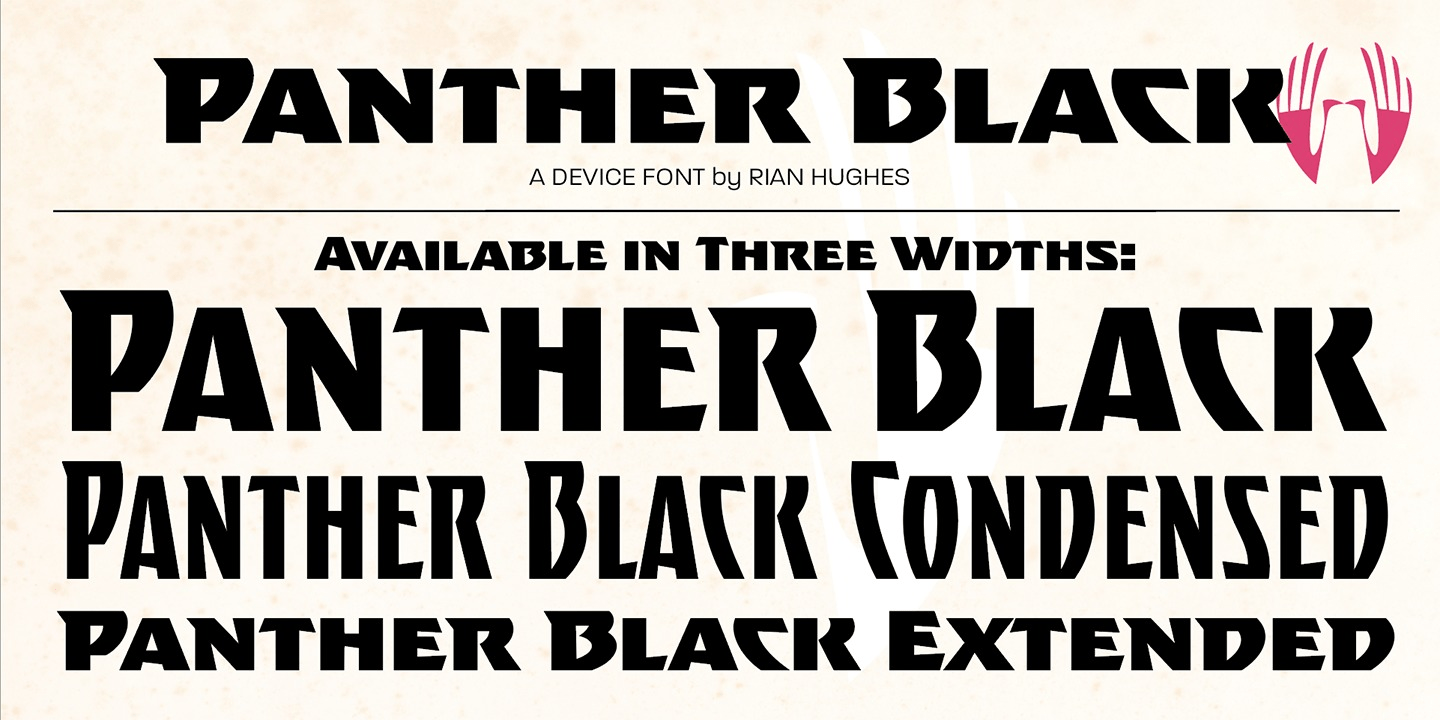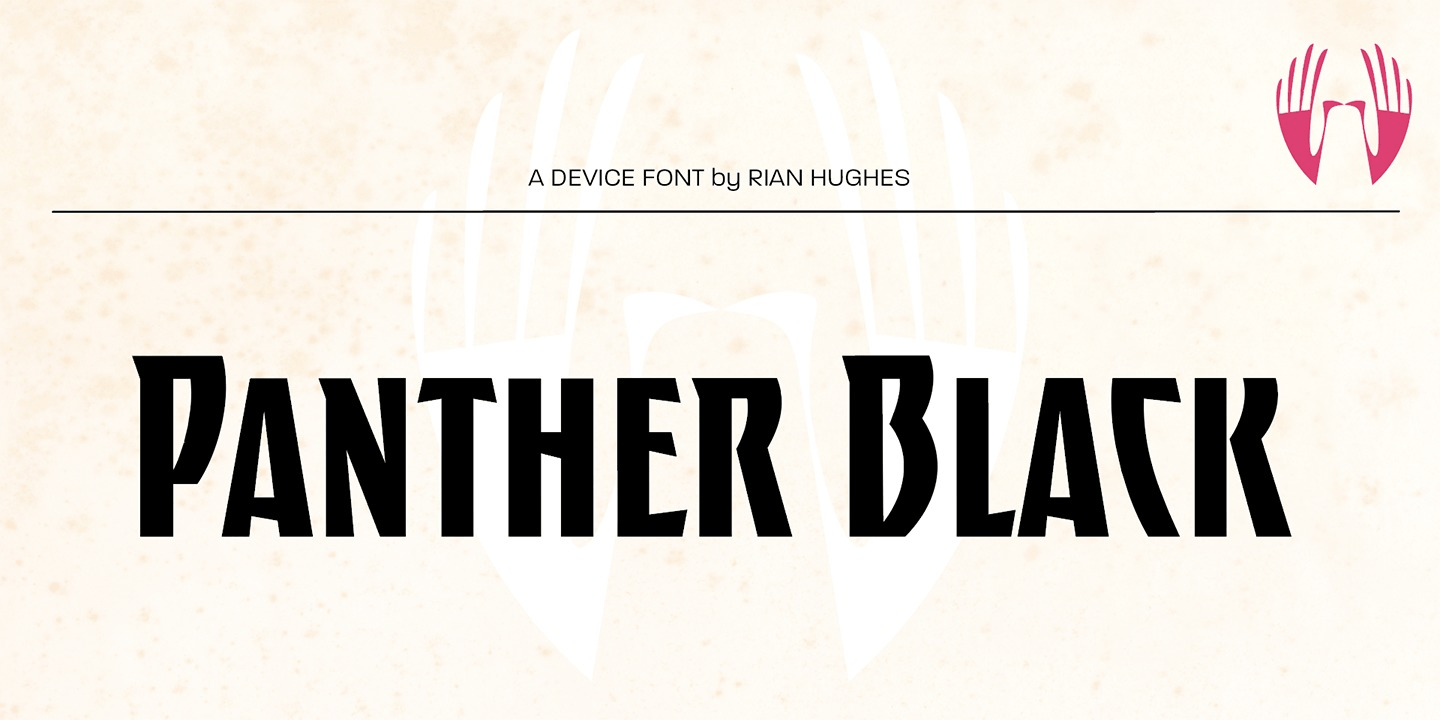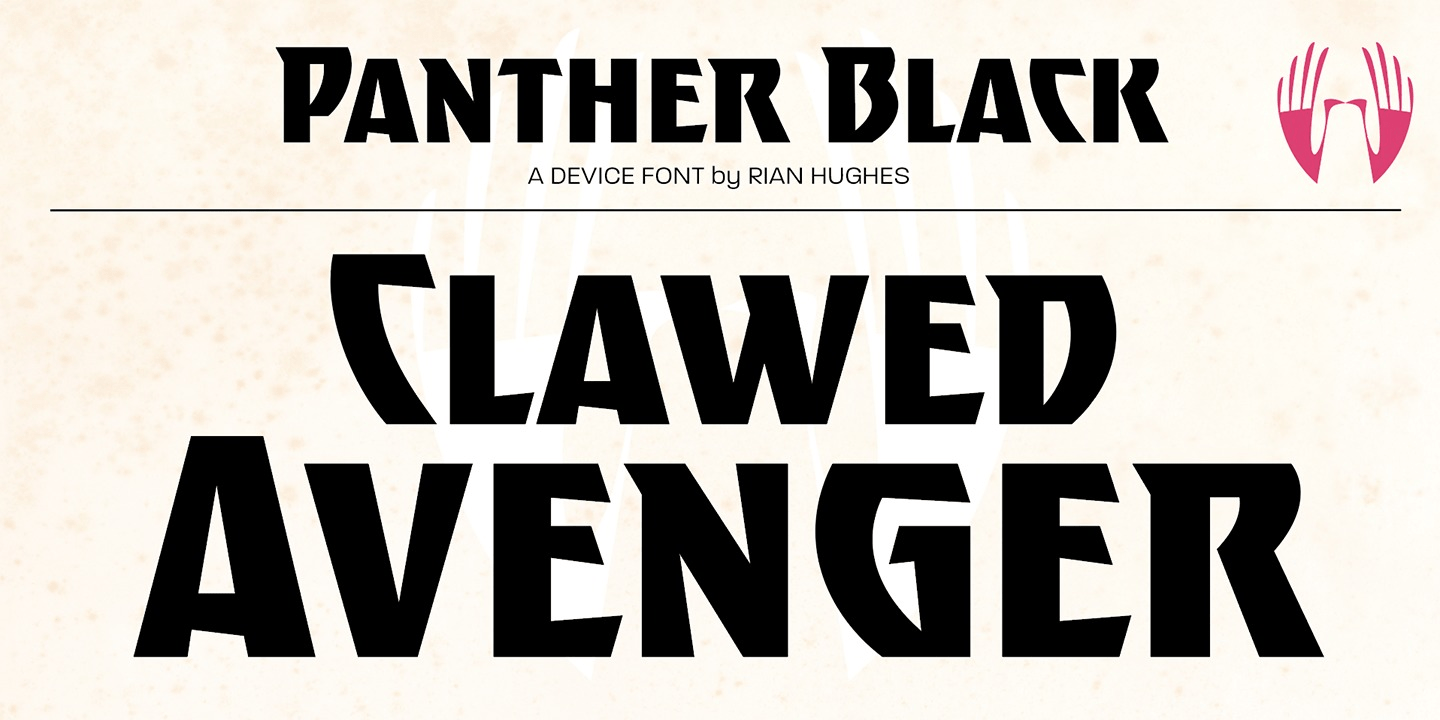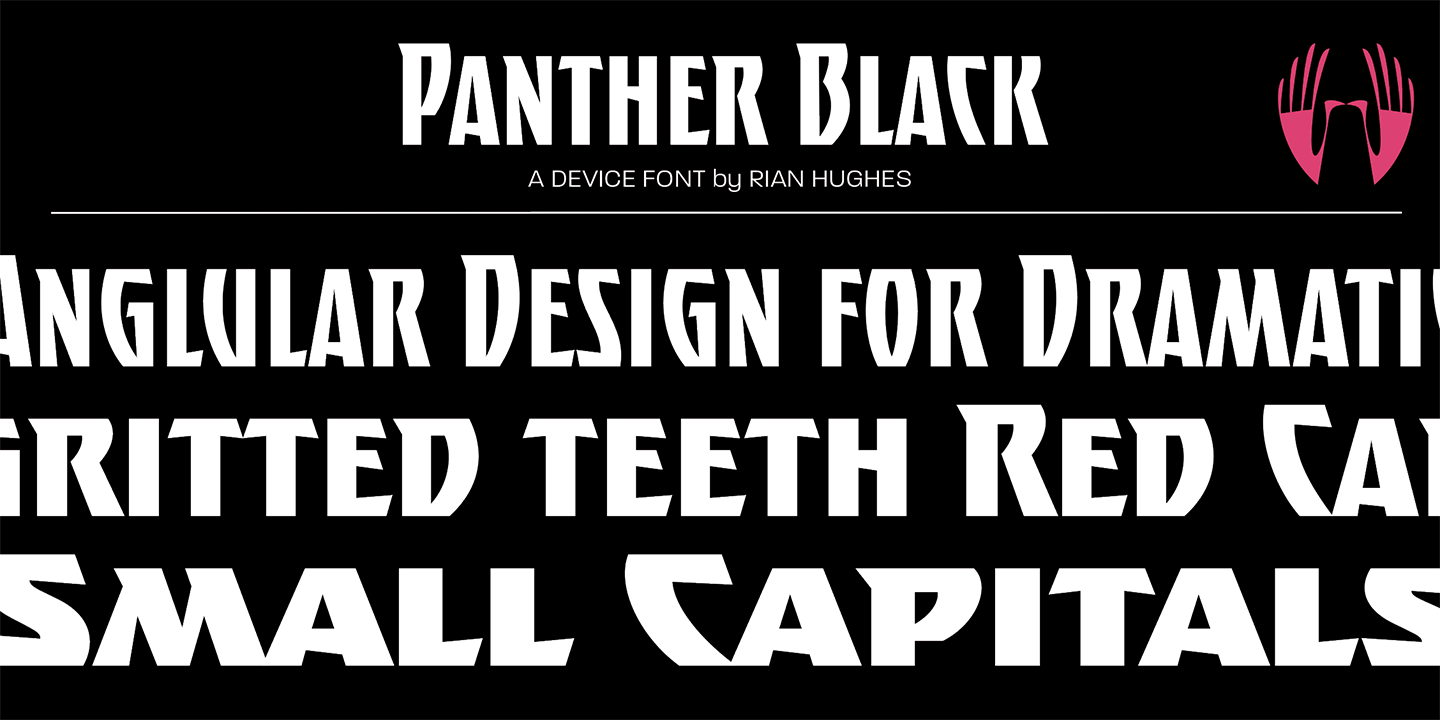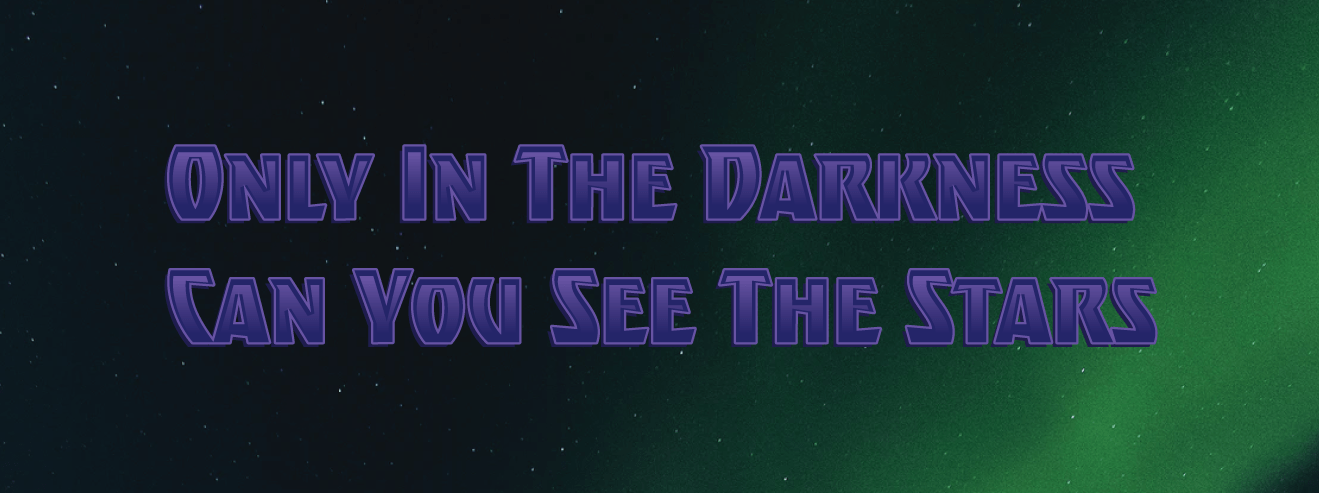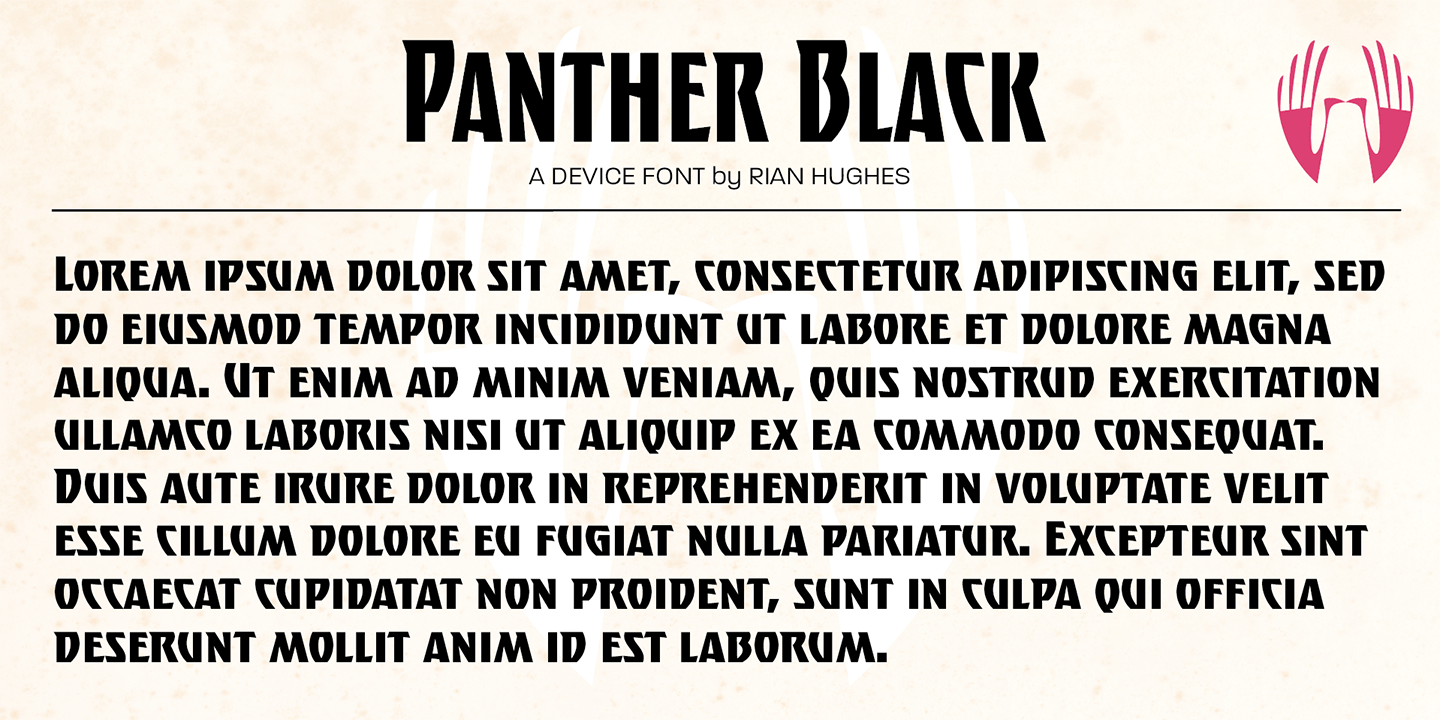
About Panther Black
Developed from Rian Hughes? Black Panther logo for Marvel, Panther Black is a sharp and stylish three-weight headline sans. Built from sweeping curves and tapered crossbars, its bold, dynamic design is seen to best effect in shorter settings. Available…